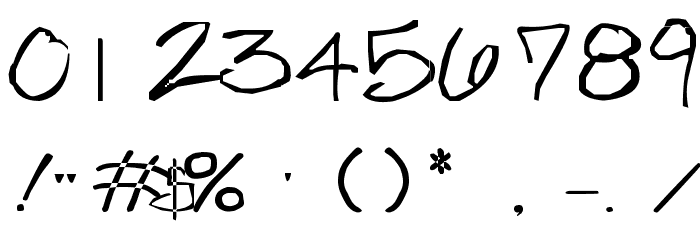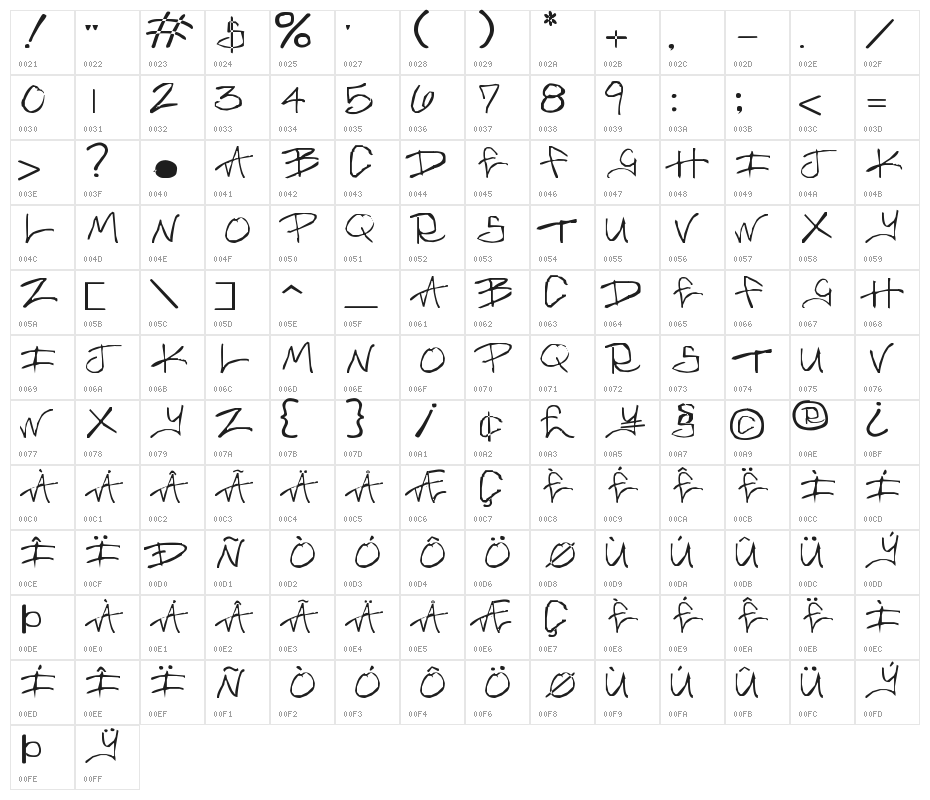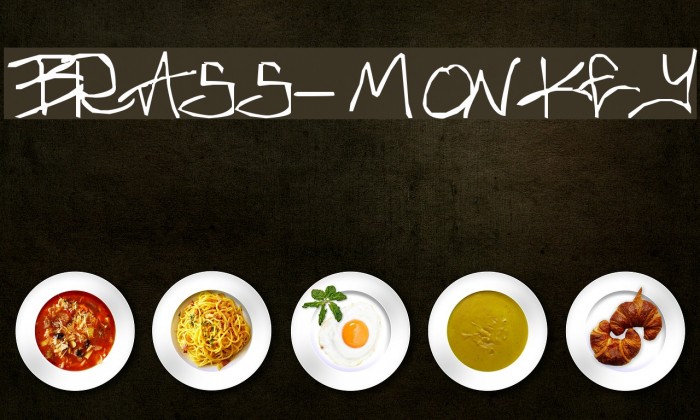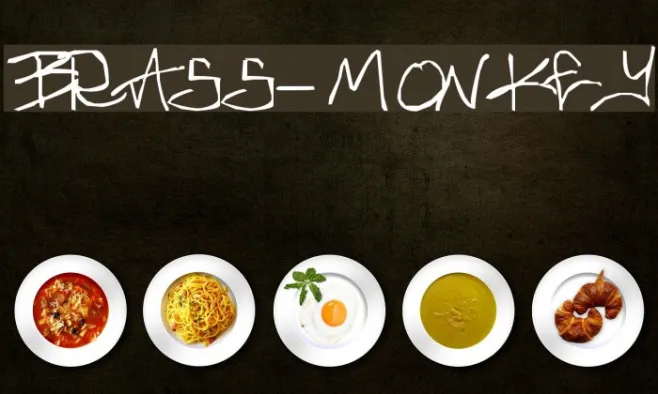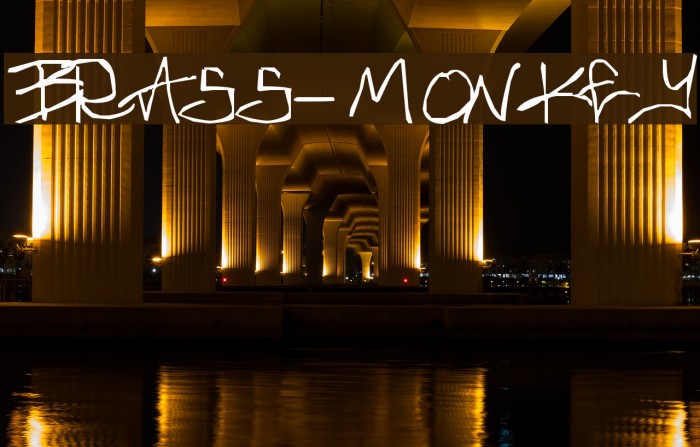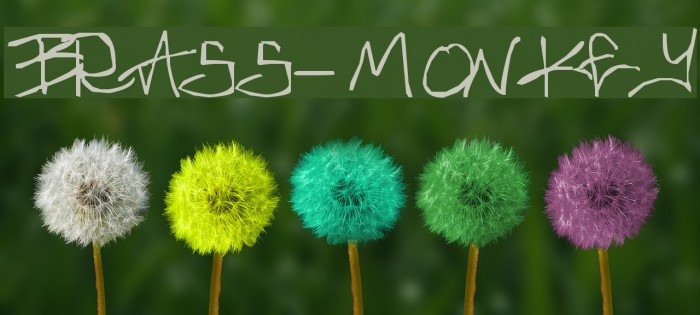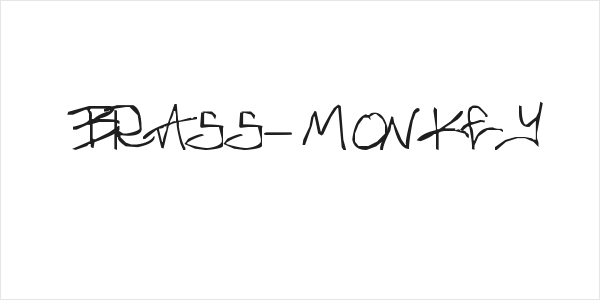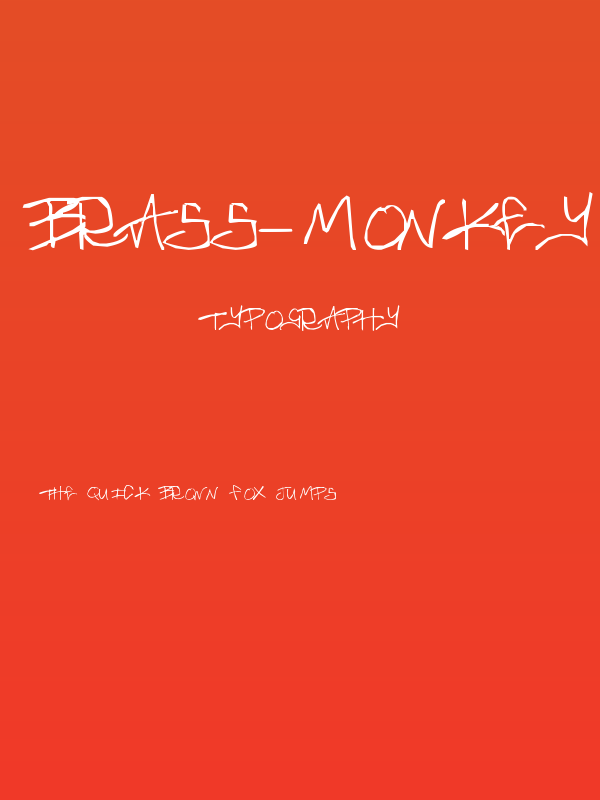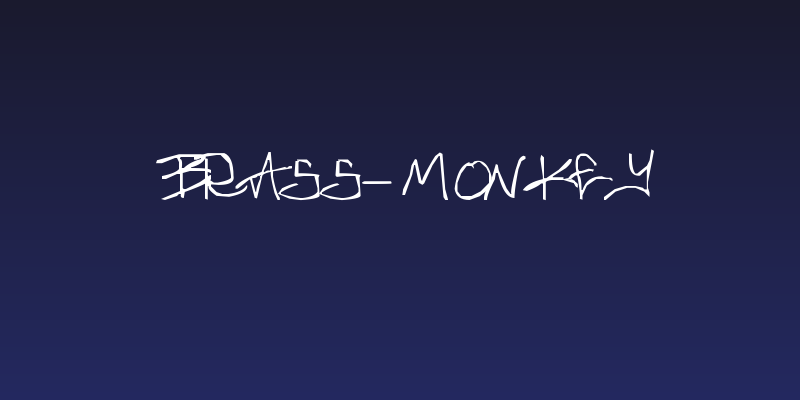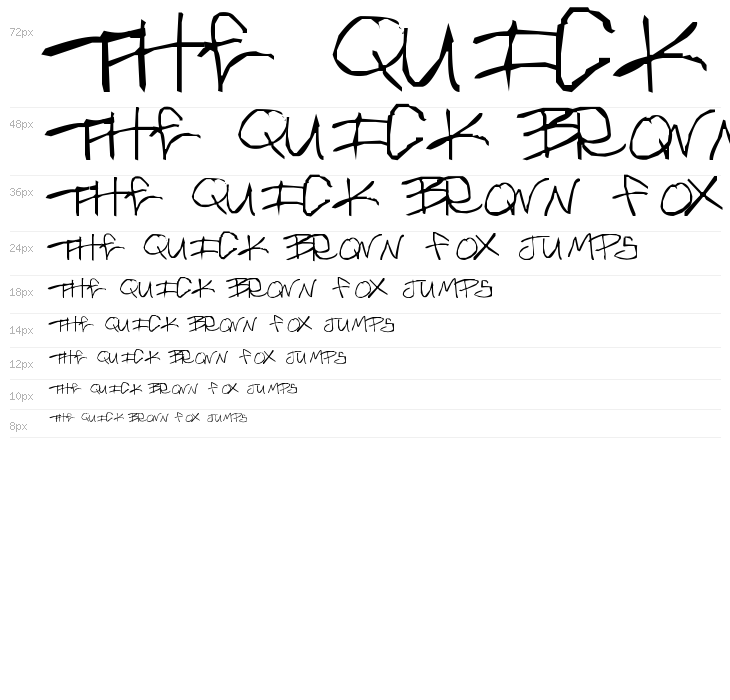
Brass-Monkey Font
Brass-Monkey Description
This font exhibits a bold, graffiti-inspired style with a dynamic and energetic appearance. The characters are crafted with a hand-drawn aesthetic, featuring irregular strokes and a playful, rebellious vibe. The uppercase and lowercase letters maintain a consistent style, with exaggerated curves and sharp angles that give the font a unique personality. The numbers and special characters follow the same expressive design, making the font suitable for creative and unconventional projects. Its artistic flair and urban feel make it ideal for designs that aim to capture attention and convey a sense of movement and creativity.
| Overall Style | Modern, Urban, Artistic |
| Proposed Projects | Street art posters, album covers, urban-themed branding, event flyers, and creative social media graphics. |